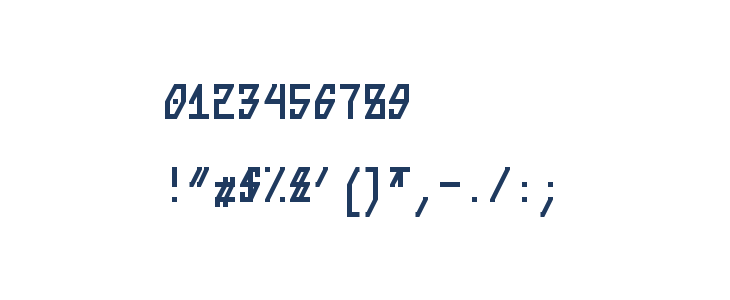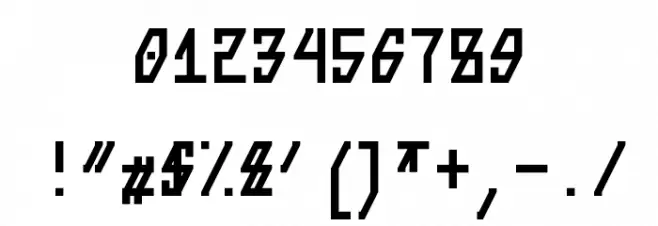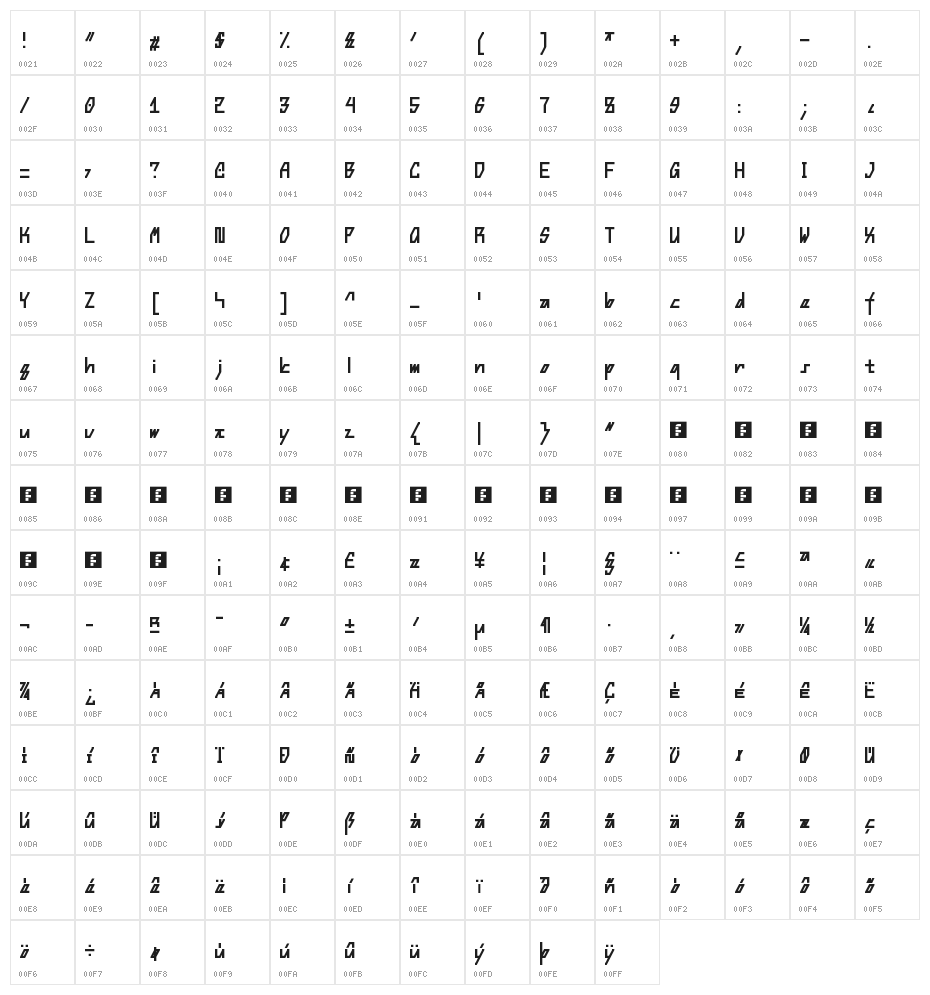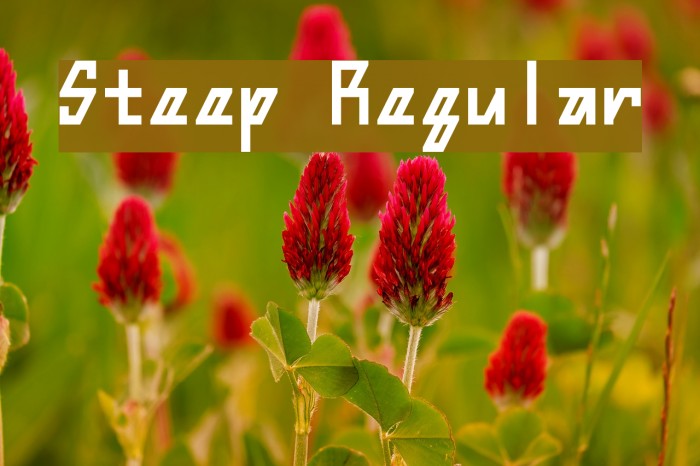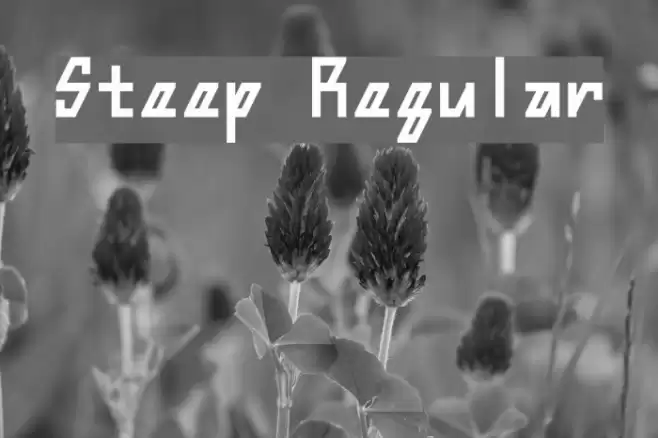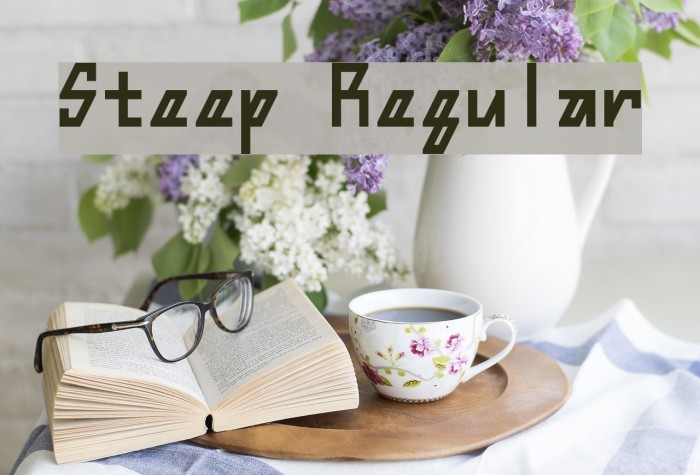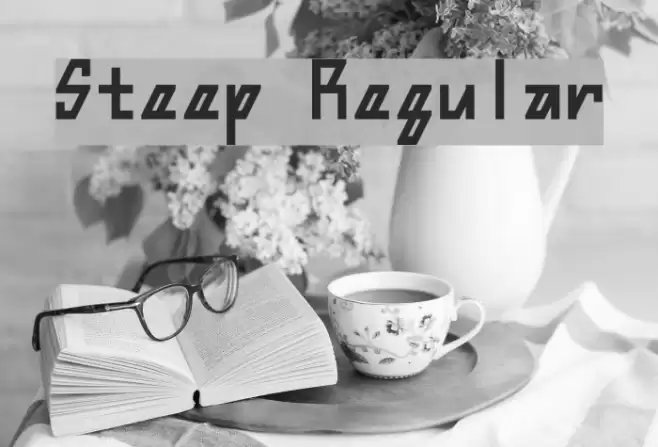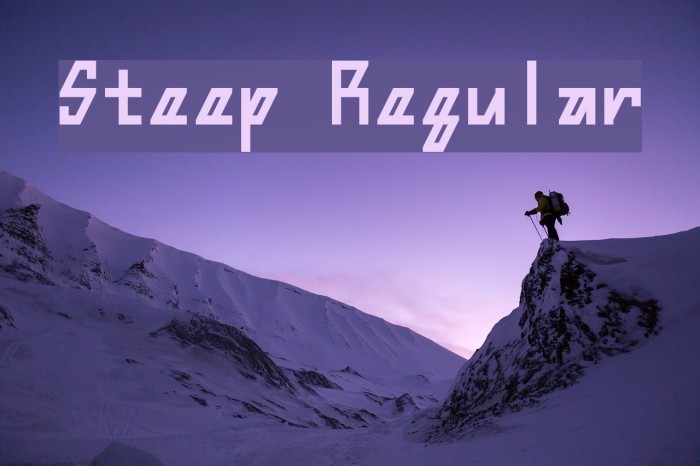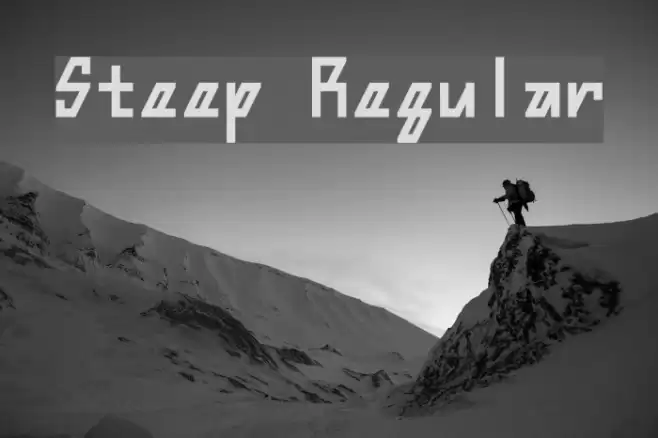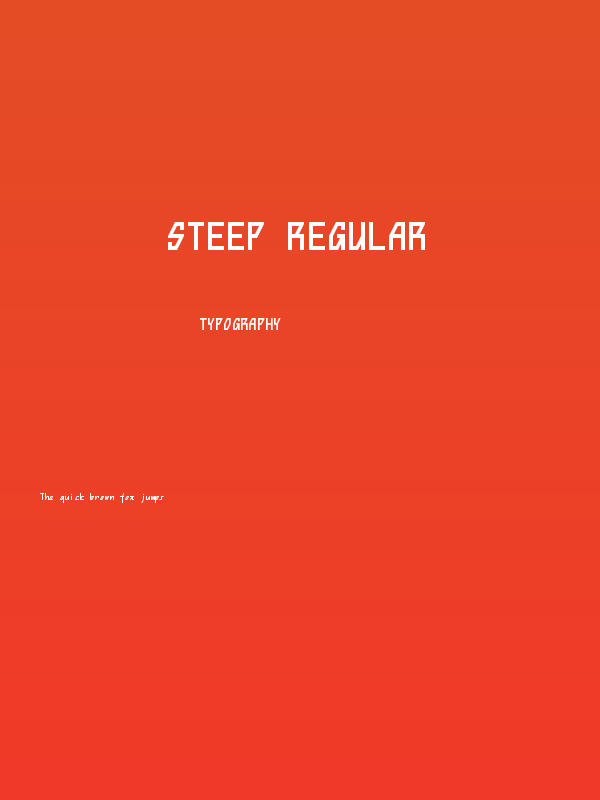
Steep Regular Font
Steep Regular Description
This font features a bold, angular design with a modern and edgy aesthetic. The characters are constructed with sharp, geometric lines, giving it a distinctive and assertive appearance. The uppercase letters are particularly striking, with a consistent height and width that create a uniform look. The lowercase letters maintain the angular theme, though they offer a bit more variation in form, adding a touch of dynamism. The numerals are equally bold and geometric, ensuring readability while maintaining the overall style. Special characters are designed to match the font's angular and modern aesthetic, making them suitable for various applications.
| Proposed Projects | Ideal for branding, posters, and modern digital interfaces where a strong, contemporary look is desired. |